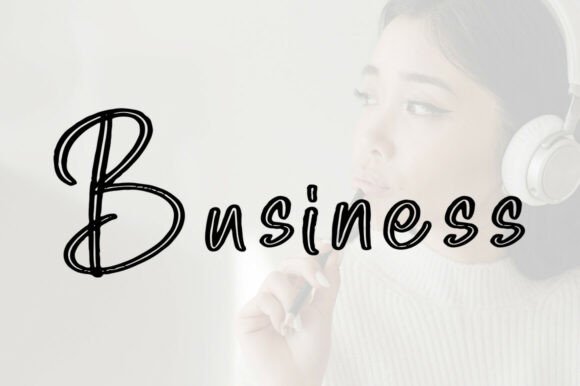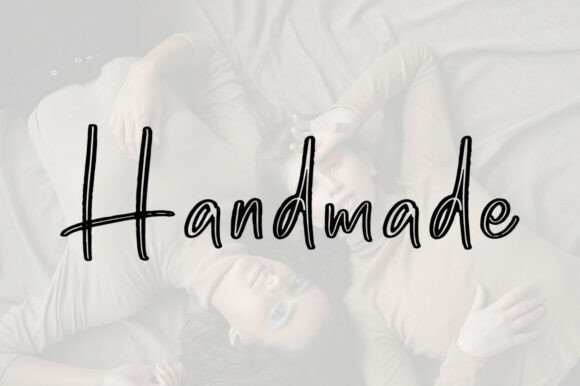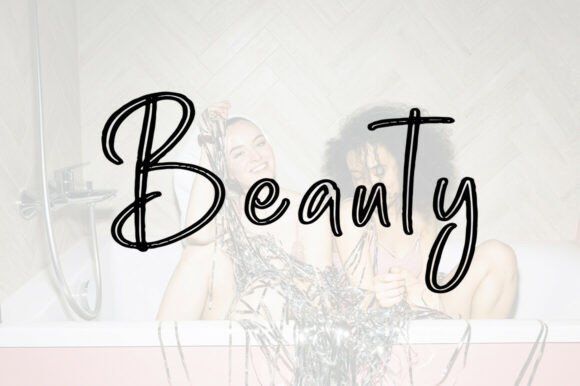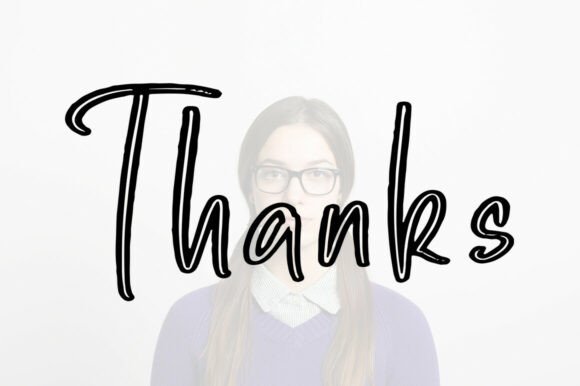
Introducing Growth Mindset Font: The Sweet and Friendly Handwritten Font for Your Design Needs
Are you a designer or crafter looking for a font that can add a personal touch to your designs? Look no further than the Growth Mindset Font! This sweet and friendly handwritten font is perfect for creating beautiful wedding invitations, cards, and other designs that require a lovely and elegant touch.
What is Growth Mindset Font?
Growth Mindset Font is a carefully crafted handwritten font that exudes a sense of fun and relaxation. Its unique and charming lettering style makes it an ideal choice for designers and crafters who want to add a personal touch to their designs. Whether you’re creating wedding invitations, greeting cards, or any other design that requires a touch of elegance, Growth Mindset Font is the perfect choice.
Characteristics of Growth Mindset Font
So, what makes Growth Mindset Font so special? Here are some of its key characteristics:
- Sweet and Friendly: Growth Mindset Font has a sweet and friendly tone that makes it perfect for designs that require a personal touch.
- Handwritten: This font is carefully handwritten to give it a unique and charming feel.
- Fun and Relaxed: Growth Mindset Font has a fun and relaxed vibe that makes it ideal for designs that require a lighthearted touch.
- Versatile: This font is versatile and can be used for a wide range of designs, from wedding invitations to greeting cards and more.
Uses of Growth Mindset Font
Growth Mindset Font is a versatile font that can be used for a wide range of designs. Here are some of the most popular uses of this font:
- Wedding Invitations: Growth Mindset Font is perfect for creating beautiful and elegant wedding invitations.
- Greeting Cards: This font is ideal for creating greeting cards for special occasions such as birthdays, anniversaries, and more.
- Stationery: Growth Mindset Font can be used to create beautiful stationery, including notebooks, journals, and more.
- Digital Designs: This font can be used for digital designs, including social media graphics, blog posts, and more.
Benefits of Using Growth Mindset Font
So, why should you use Growth Mindset Font for your designs? Here are some of the benefits of using this font:
- Unique and Charming: Growth Mindset Font has a unique and charming lettering style that will make your designs stand out.
- Easy to Read: This font is easy to read, making it perfect for designs that require a clear and concise message.
- Customizable: Growth Mindset Font can be customized to fit your design needs, including changing the color, size, and more.
- Time-Saving: Using a pre-made font like Growth Mindset Font can save you time and effort, allowing you to focus on other aspects of your design.
Tips for Using Growth Mindset Font
Here are some tips for using Growth Mindset Font effectively:
- Pair with Other Fonts: Growth Mindset Font can be paired with other fonts to create a unique and interesting design.
- Experiment with Colors: Try experimenting with different colors to find the perfect match for your design.
- Use for Headings and Titles: Growth Mindset Font is perfect for headings and titles, adding a touch of elegance and sophistication to your design.
In conclusion, Growth Mindset Font is a sweet and friendly handwritten font that is perfect for designers and crafters looking to add a personal touch to their designs. With its unique and charming lettering style, this font is ideal for creating beautiful wedding invitations, cards, and other designs that require a lovely and elegant touch. So why not give Growth Mindset Font a try and see the difference it can make in your designs?